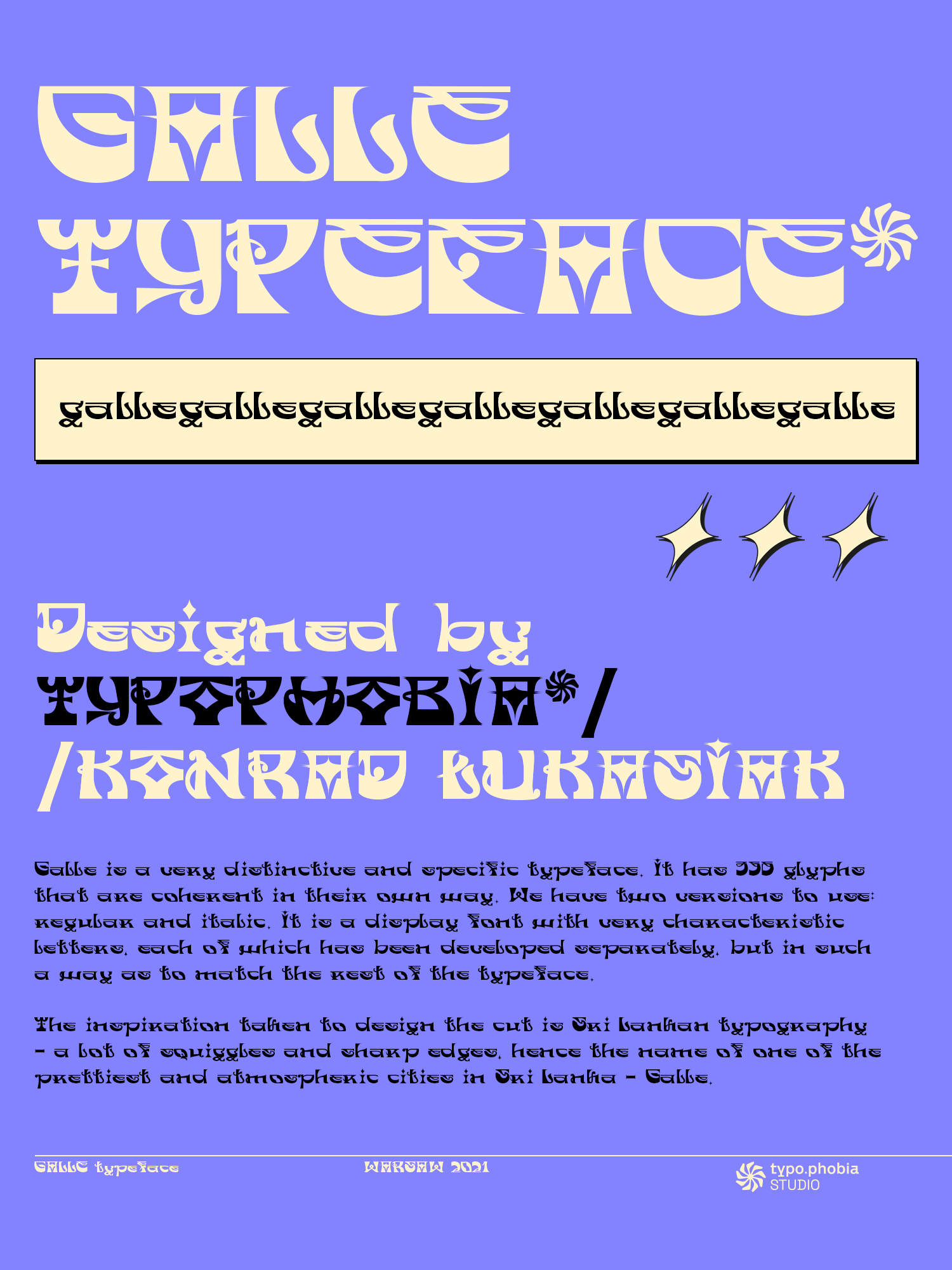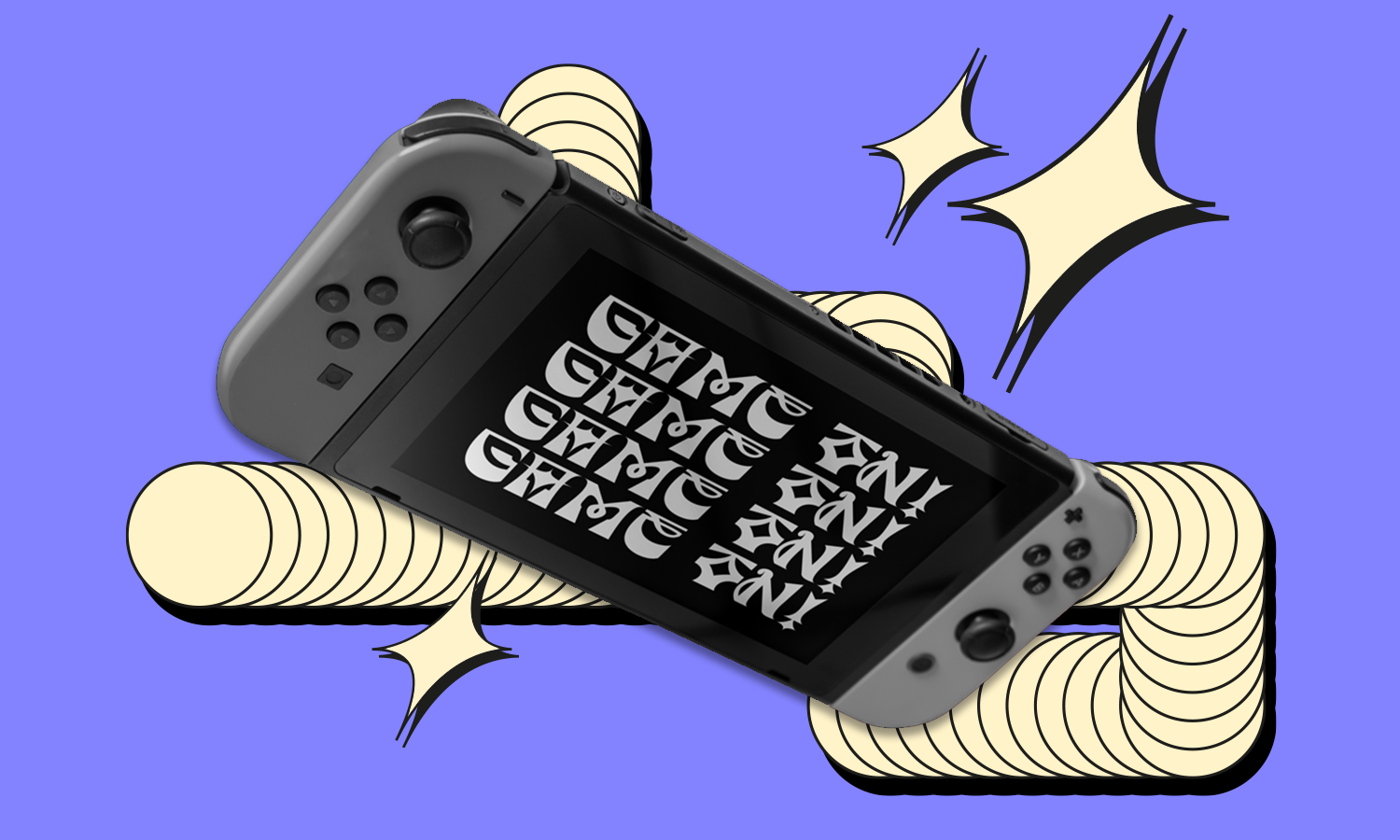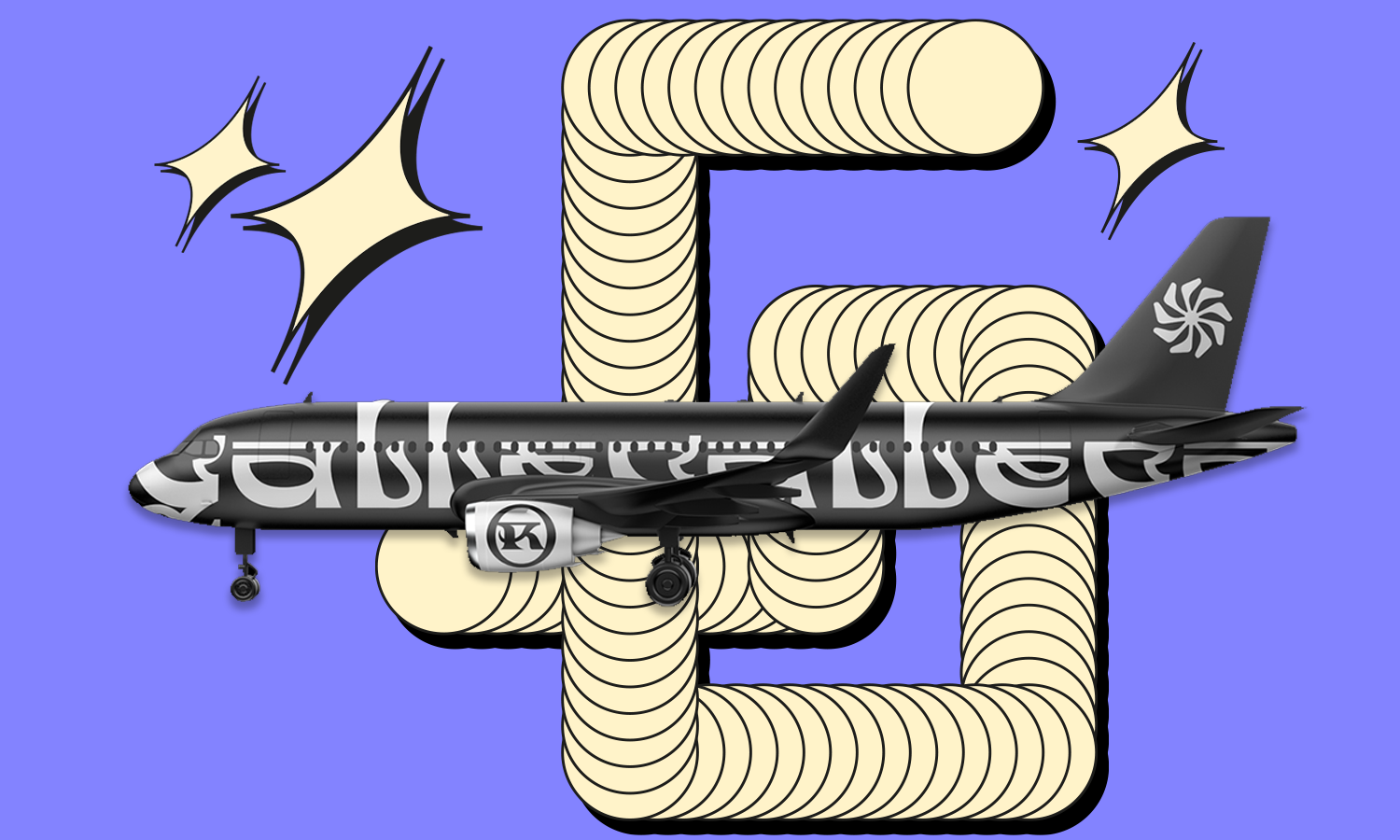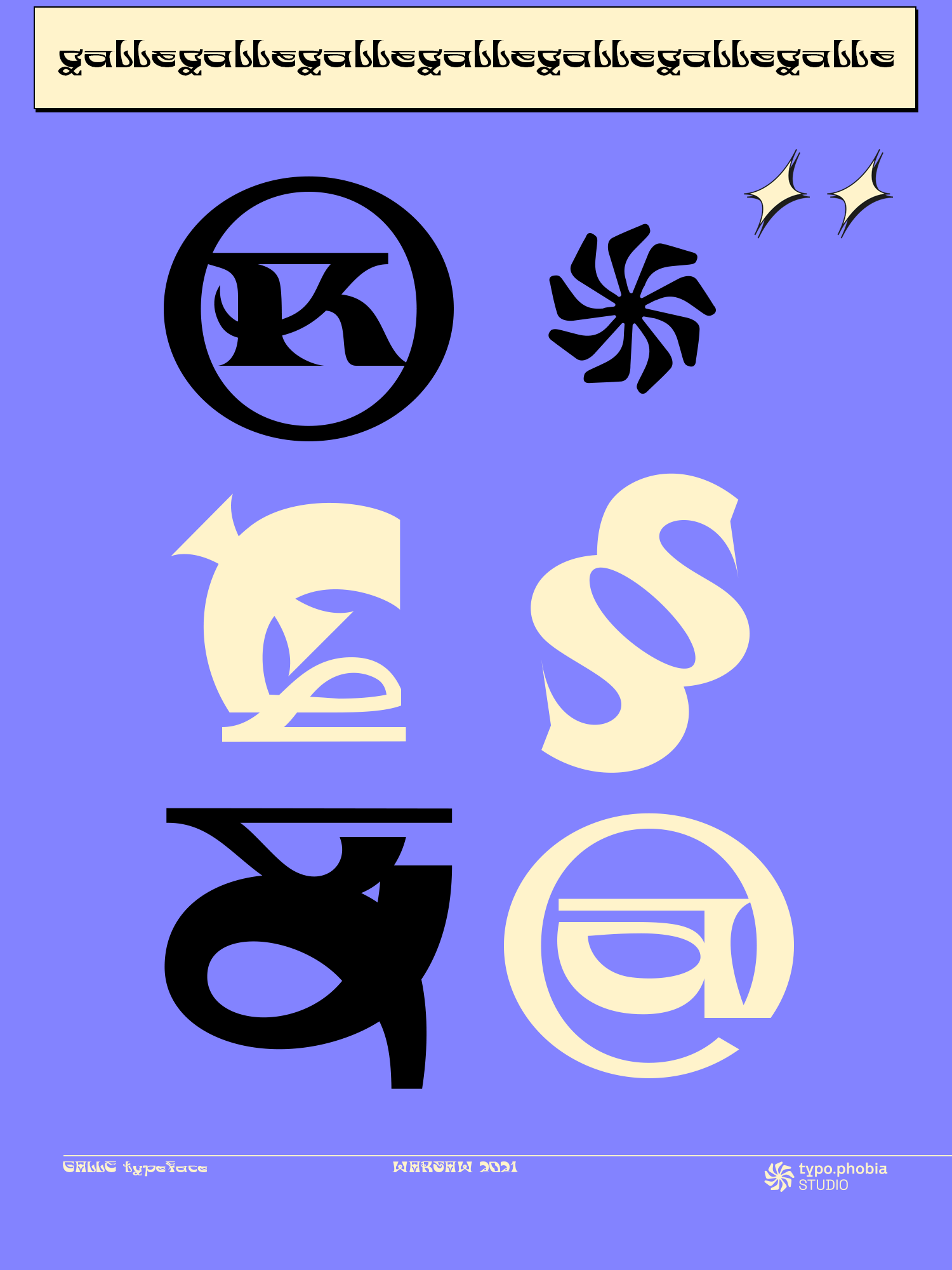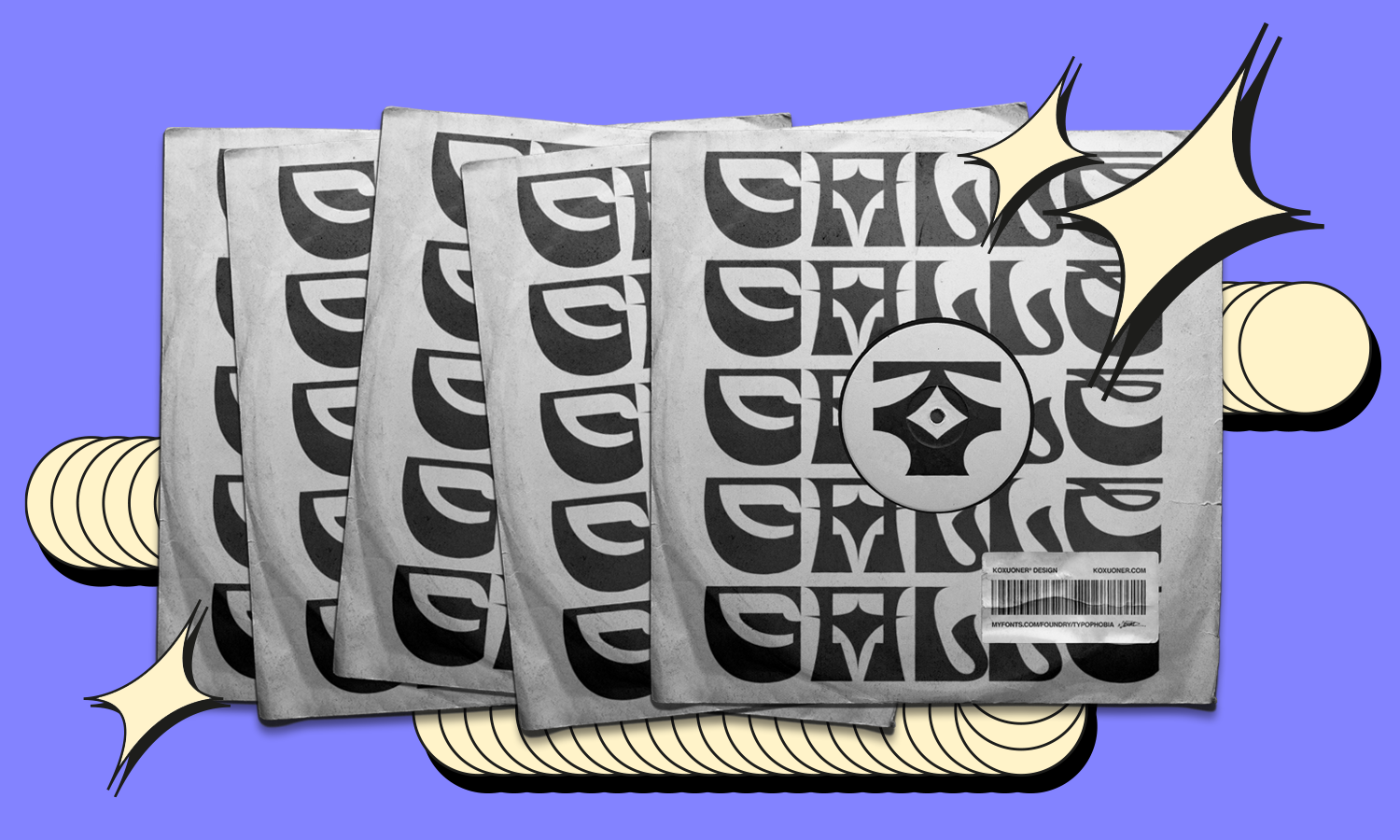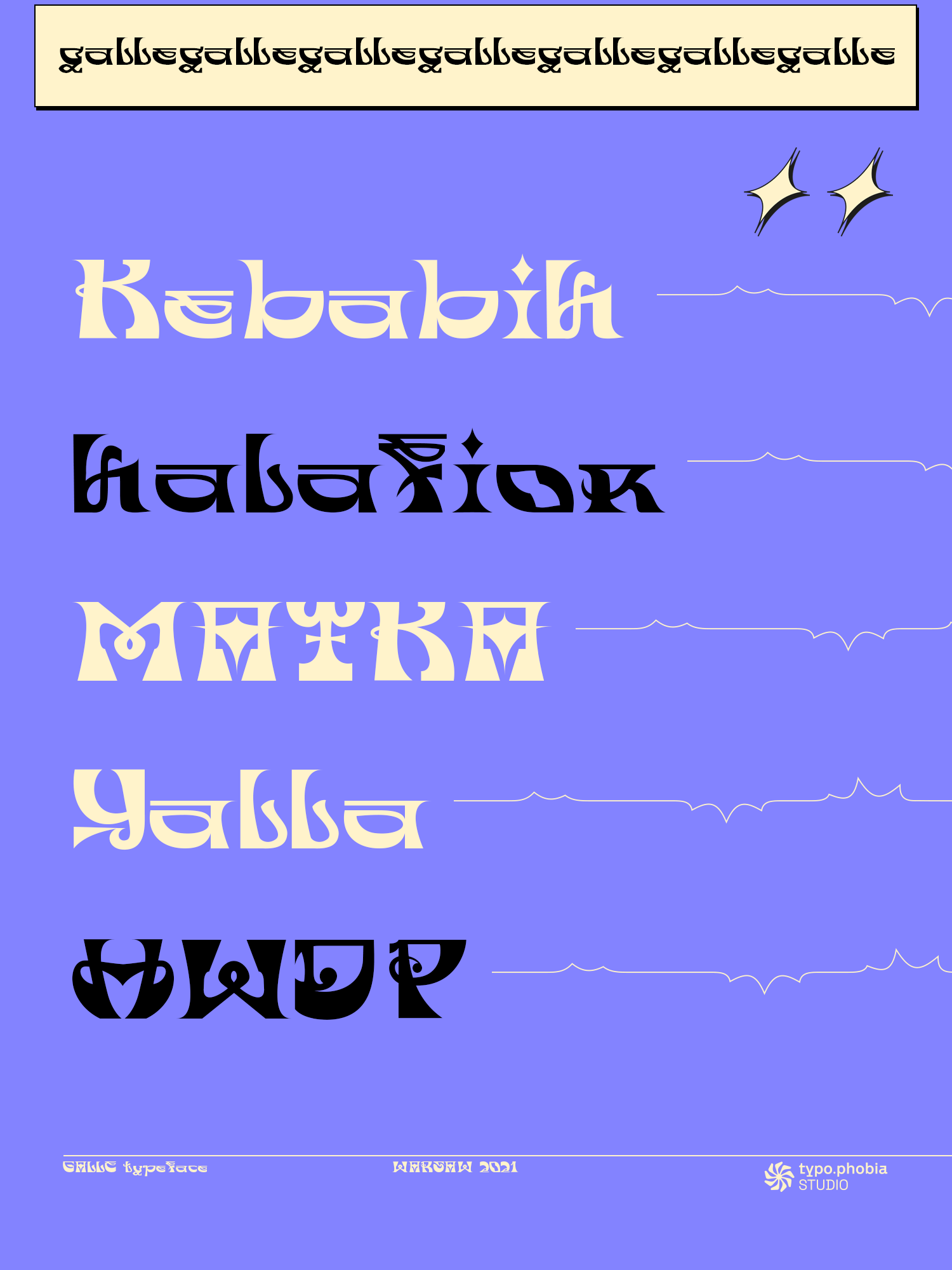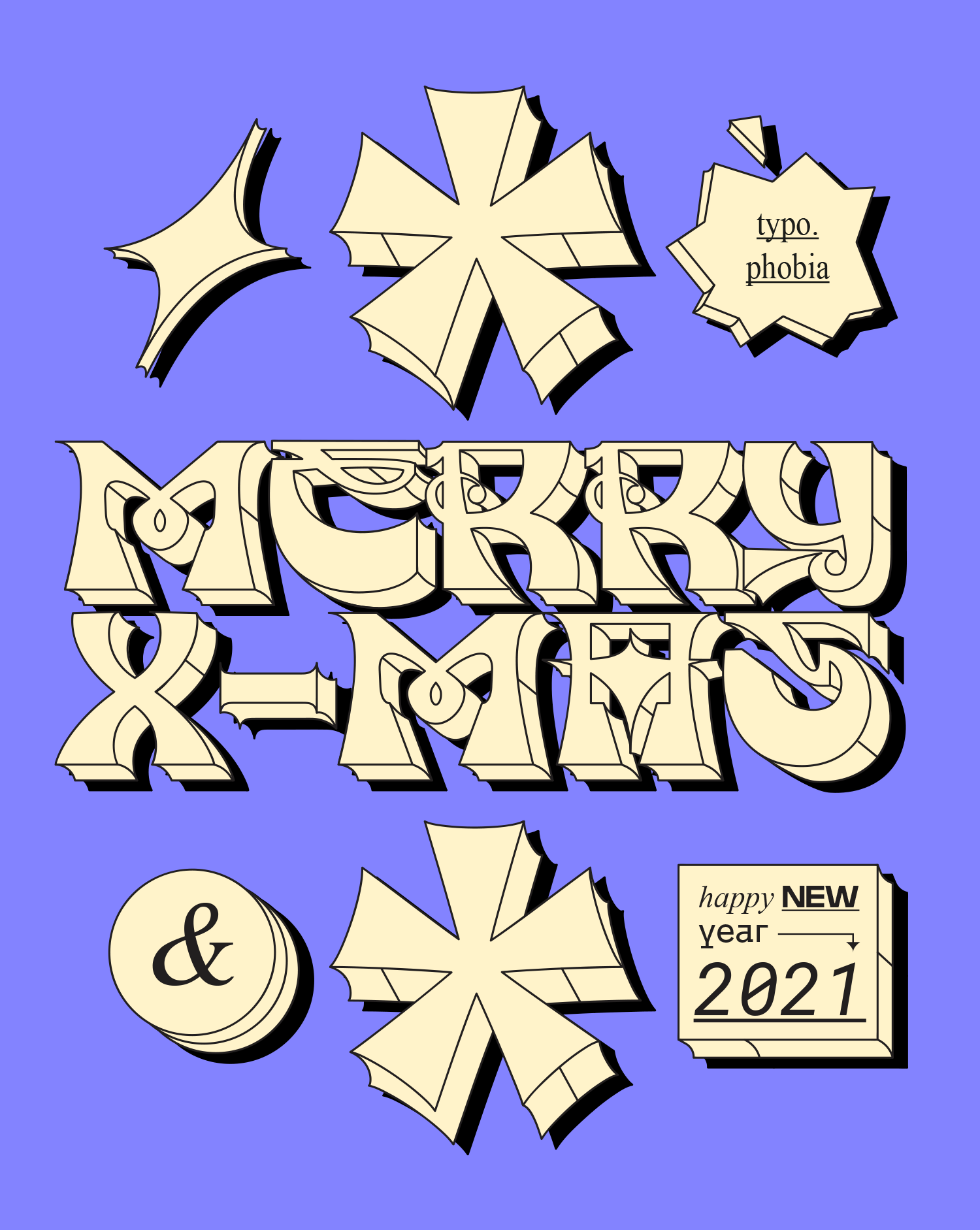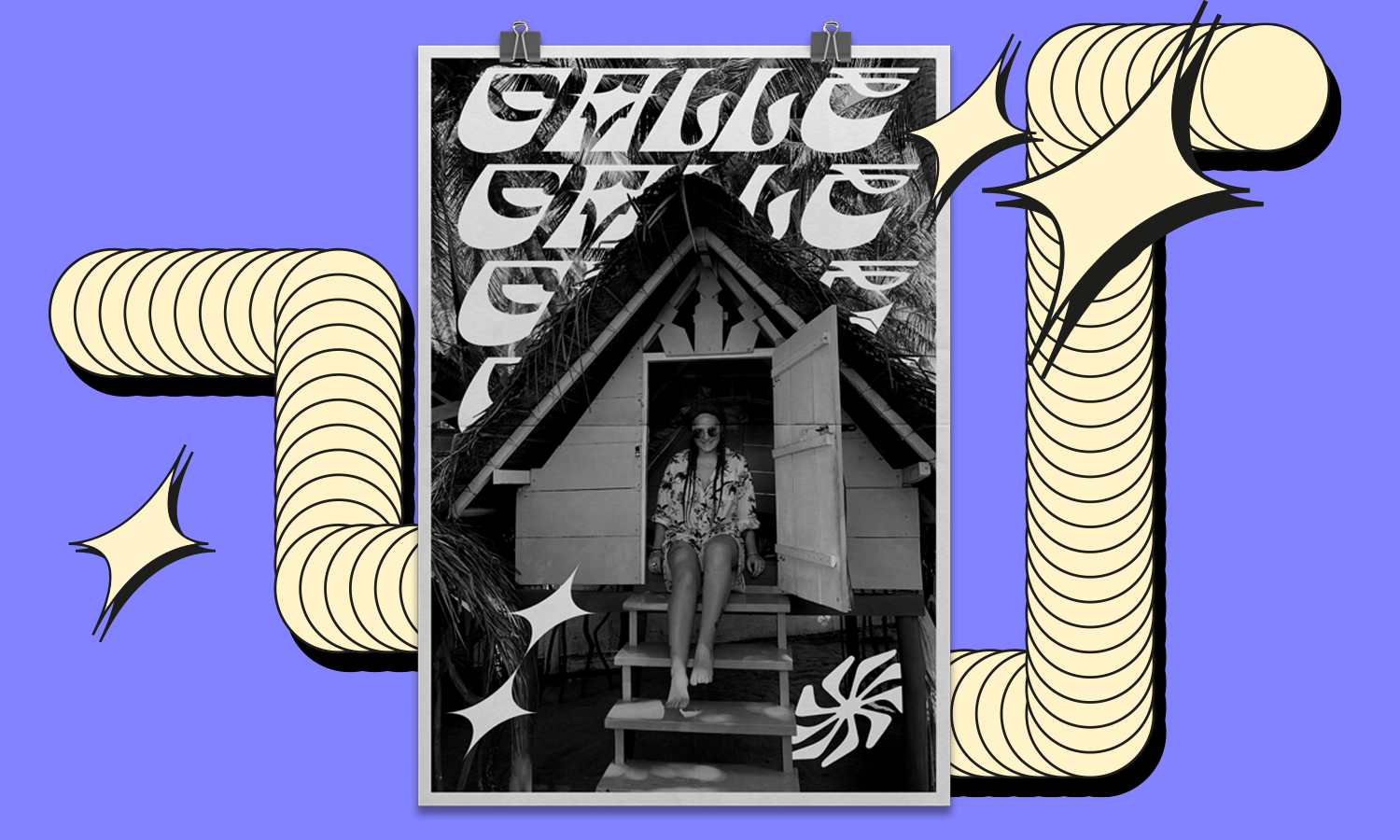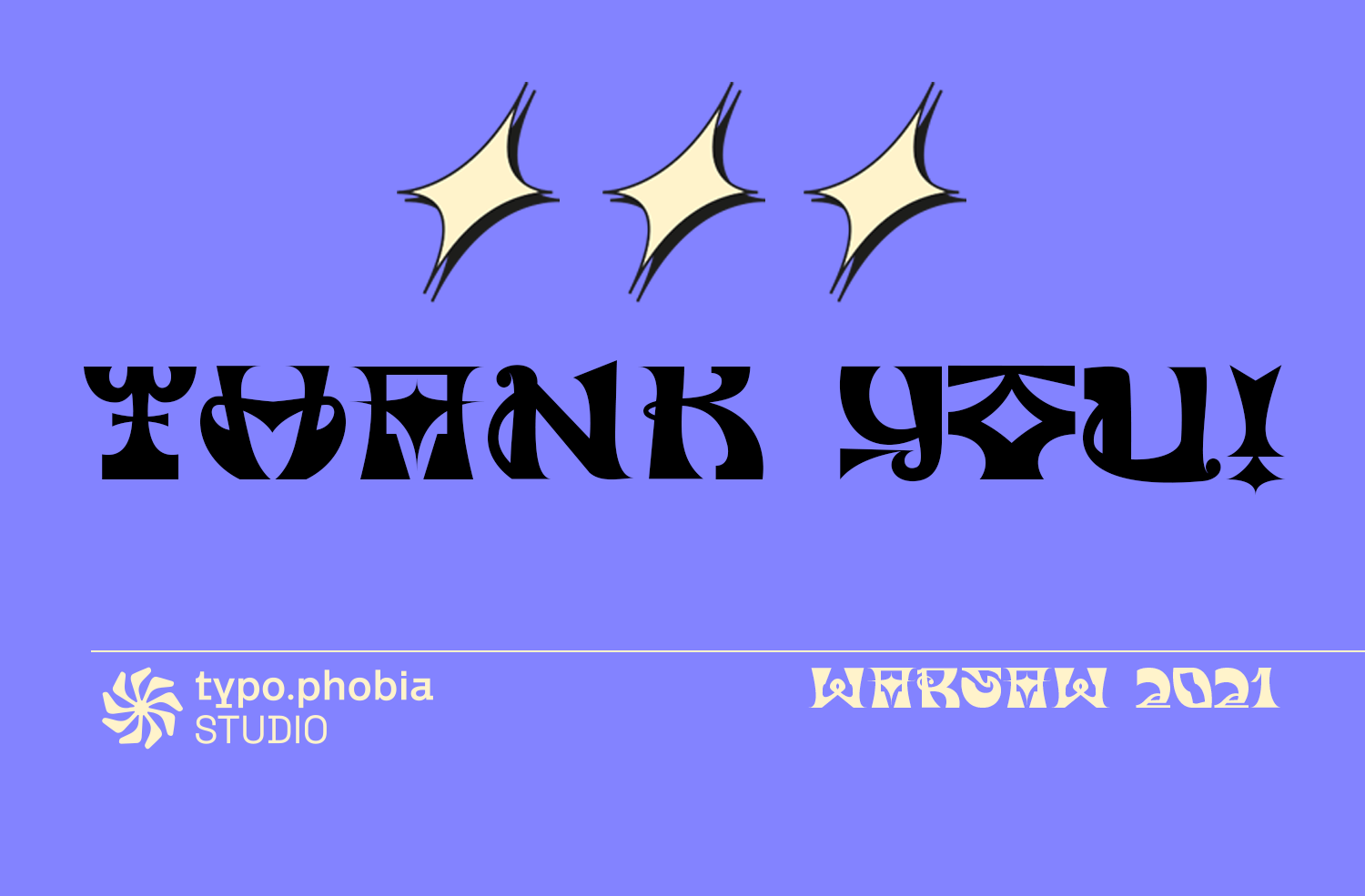
Galle Typeface
Galle is a very distinctive and specific typeface. It has 356 glyphs that are coherent in their own way. We have two versions to use: regular and italic. It is a display font with very characteristic letters, each of which has been developed separately, but in such a way as to match the rest of the typeface. The inspiration taken to design the cut is Sri Lankan typography - a lot of squiggles and sharp edges, hence the name of one of the prettiest and atmospheric cities in Sri Lanka - Galle.